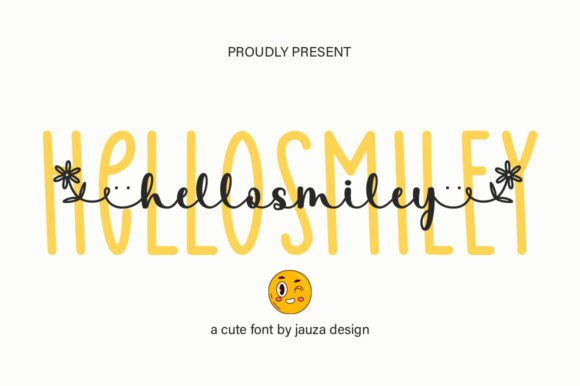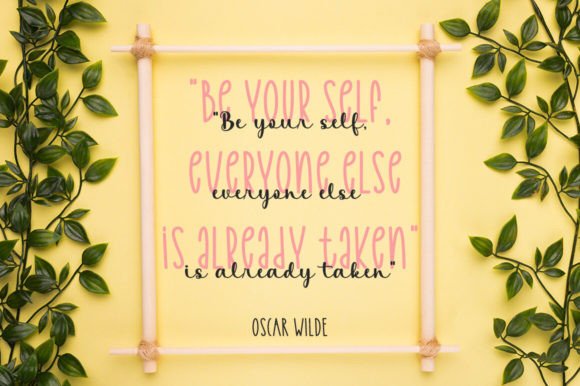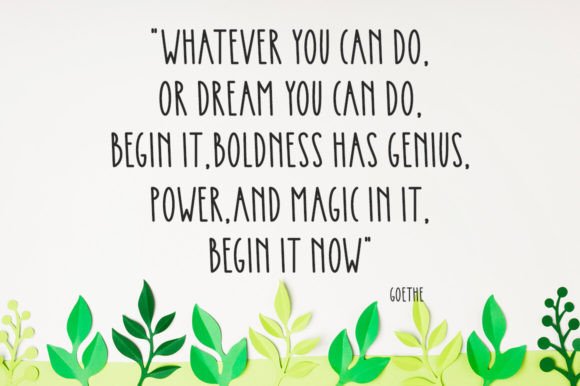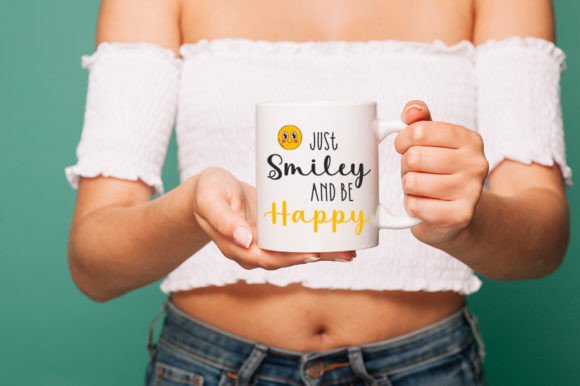
Hello Smiley Font: A Cute Duo Font Pairing for Playful DIY Designs
About the Hello Smiley Font
Introducing the Hello Smiley Font, a beautifully crafted typeface designed to elevate your creative projects. Hello Smiley is a lovely duo font (sans serif and script). Featuring characters that dance along the baseline, this font will add a luxury spark to any design project that you wish to create! Hello Smiley is PUA encoded which means you can access all of the glyphs and swashes with ease!
Hello Smiley’s playful yet elegant nature makes it ideal for branding projects needing a touch of whimsy, particularly logos, short headlines, and packaging for products aimed at a younger or female demographic. It also works well for invitations, social media graphics, and short-form marketing materials. However, its decorative script style is less suitable for body text or UI elements where readability is paramount; the swashes and dynamic baseline can hinder comprehension in longer passages.
Consider pairing the sans-serif component of Hello Smiley with a clean, geometric sans-serif like Montserrat for a modern contrast, or a warmer, neutral serif like Lato for a more classic feel. The script can be effectively paired with a simple, understated serif for a balanced contrast, allowing its decorative qualities to shine.
For a bolder statement, combine the script with a strong, condensed sans-serif, creating visual energy. Avoid pairing it with other highly decorative or script fonts, as this would likely create visual clutter and reduce readability.
Hello Smiley Font Usage Examples
Hello Smiley Font Example